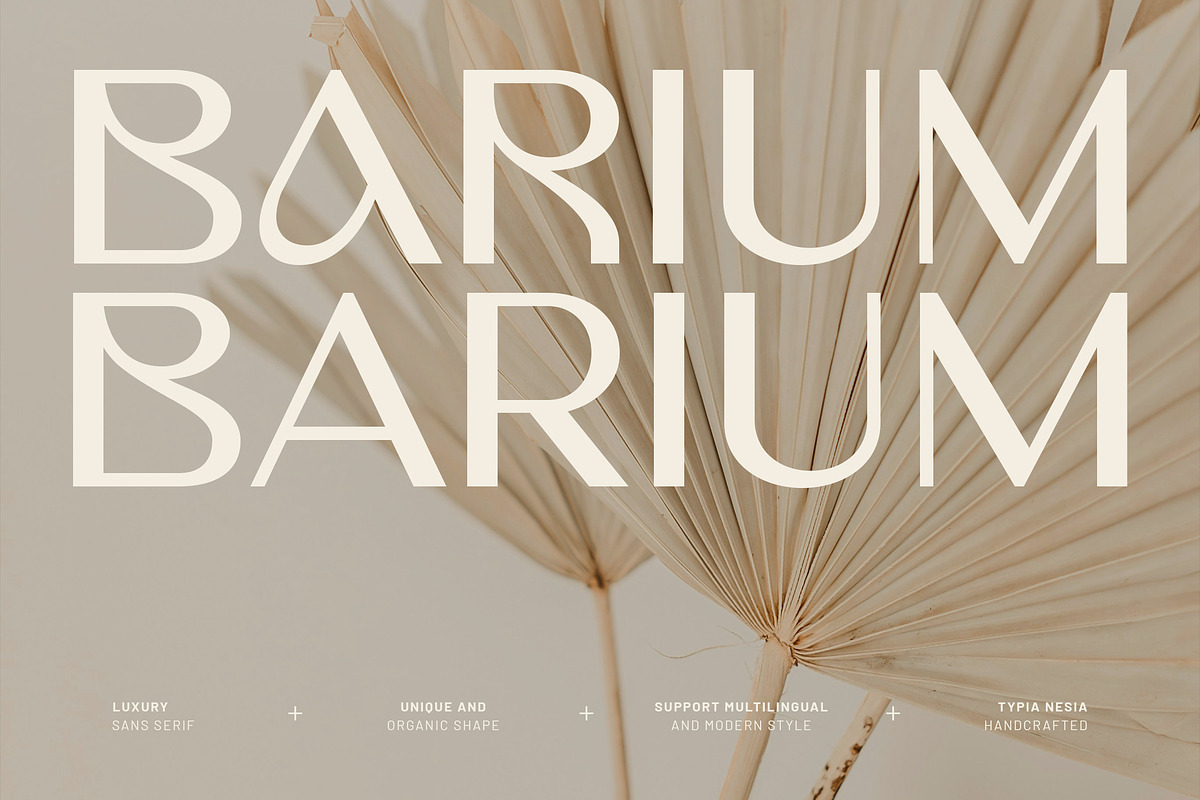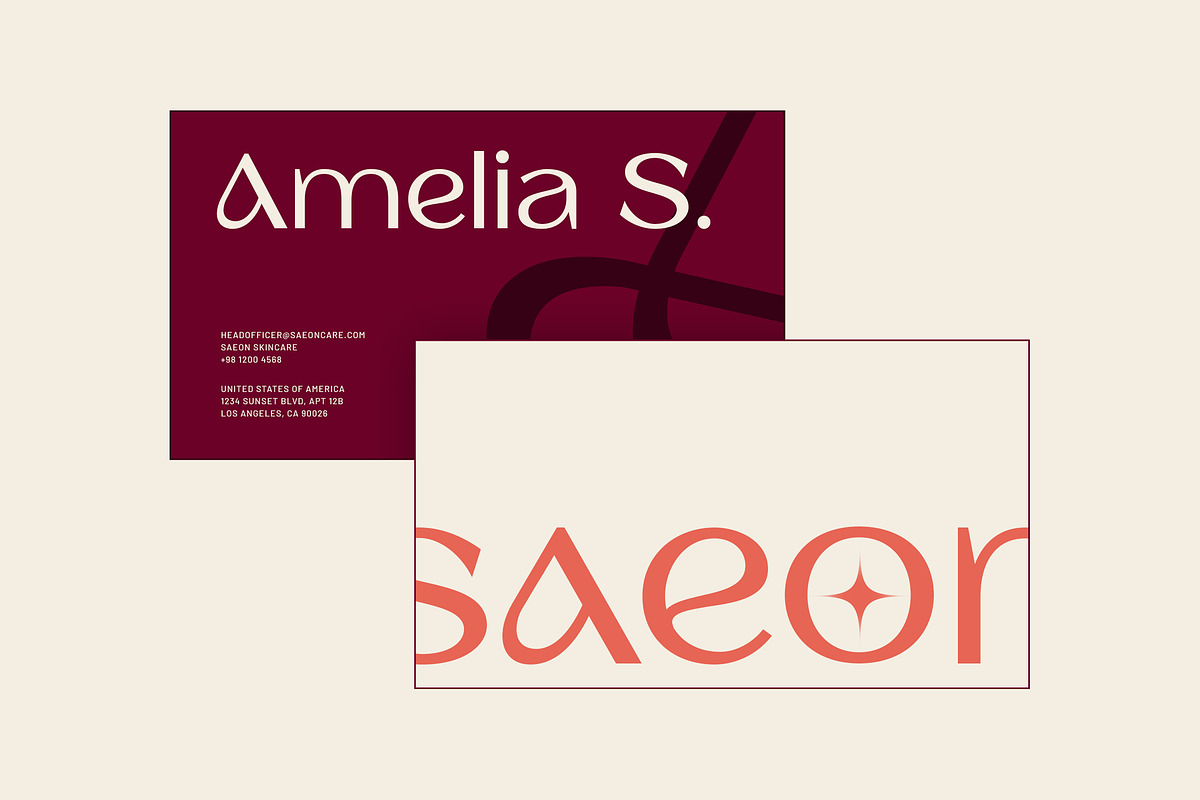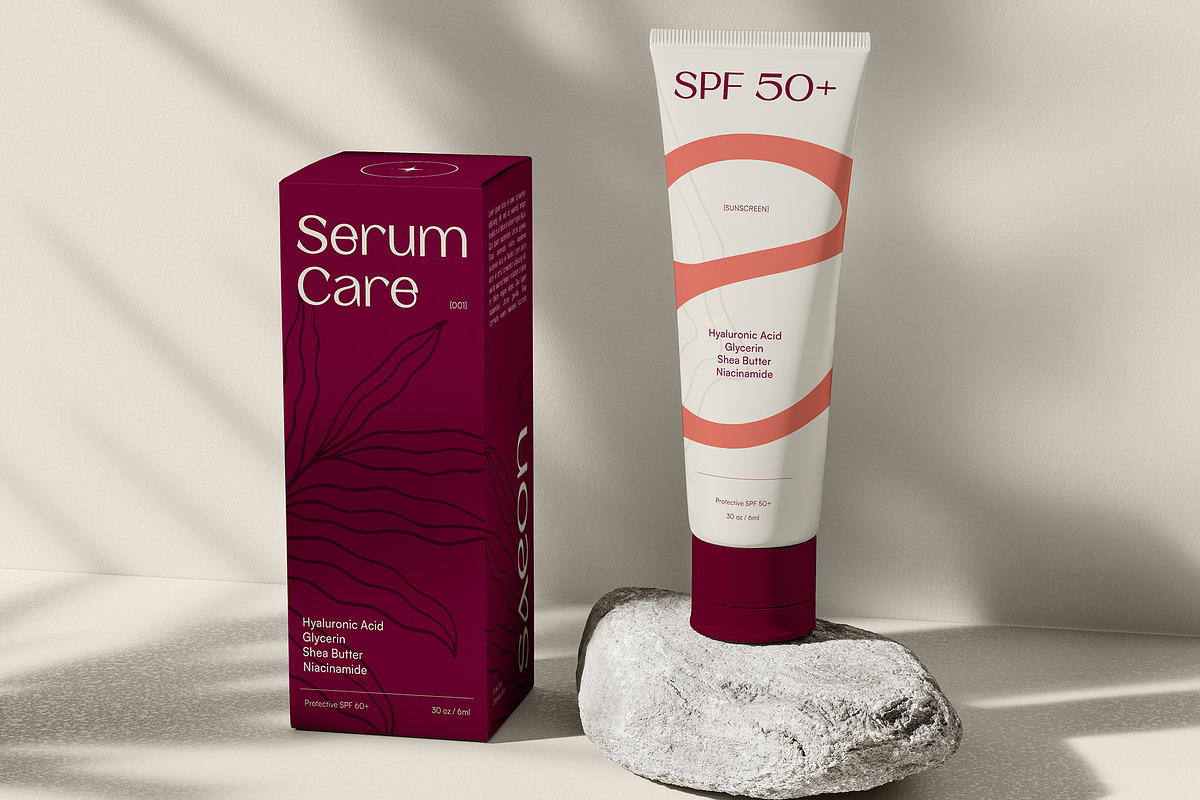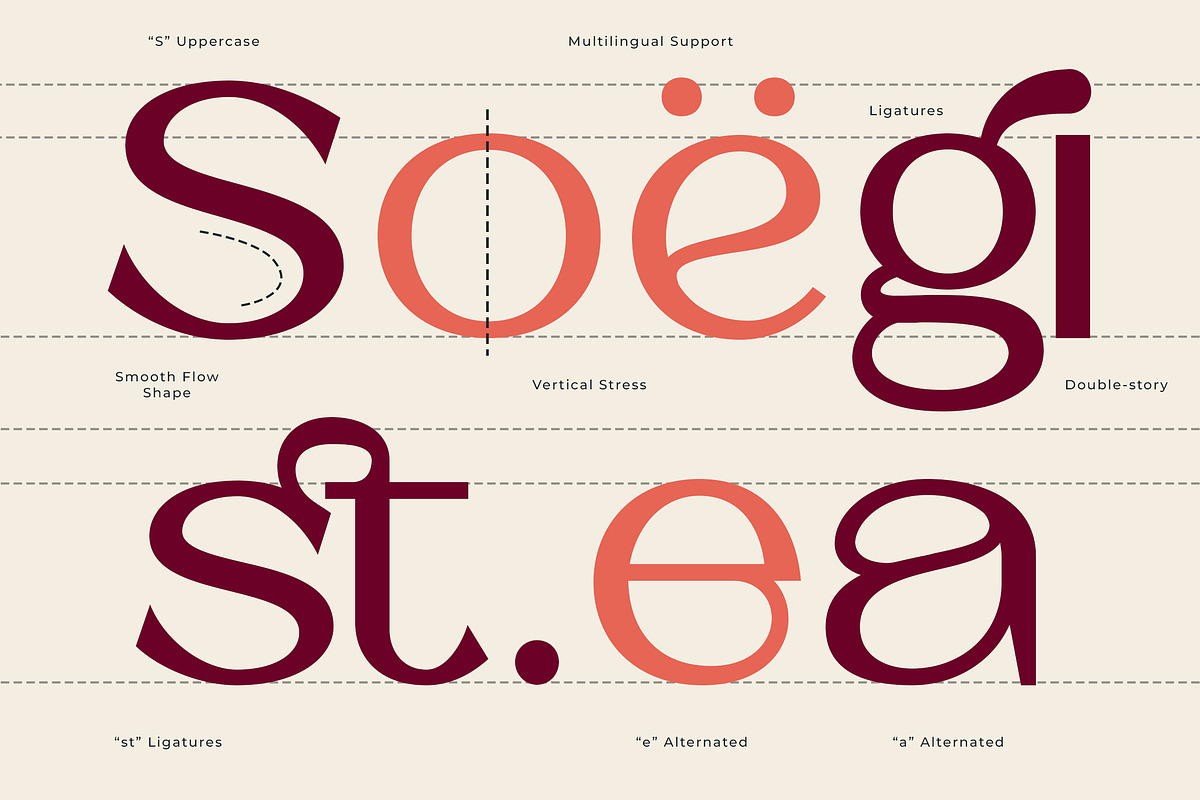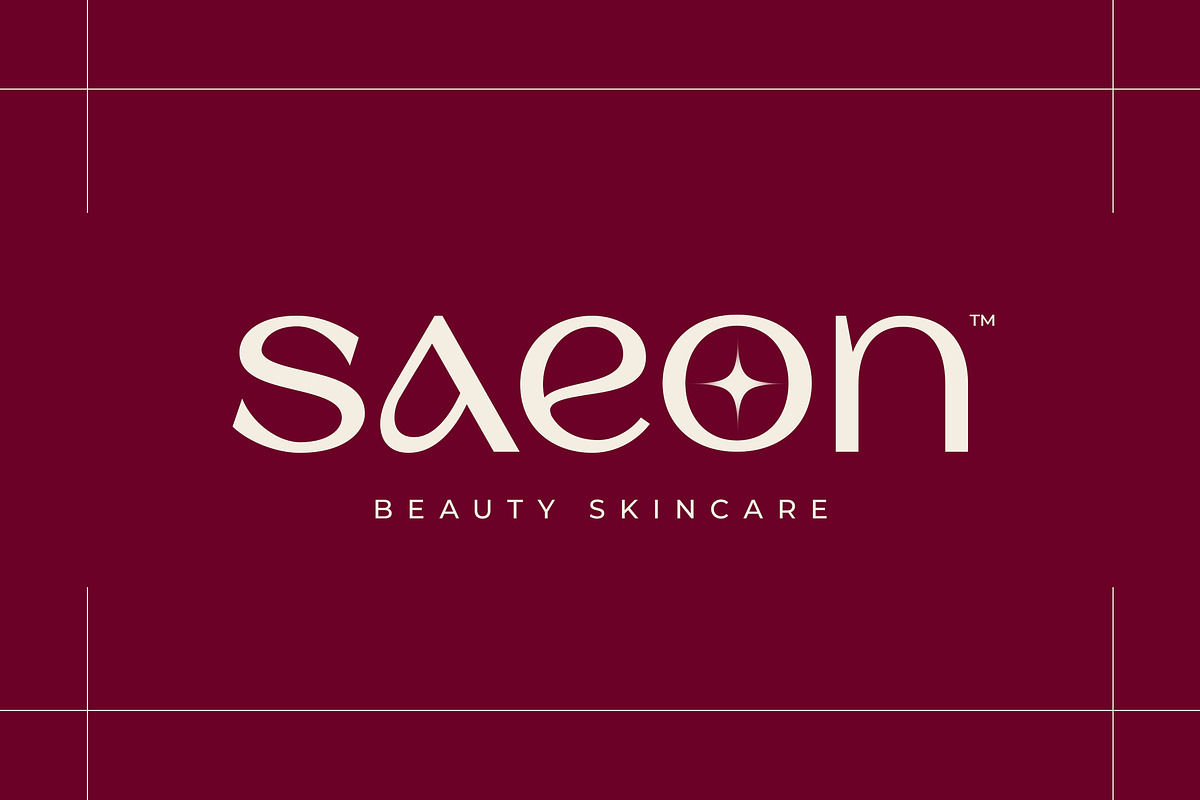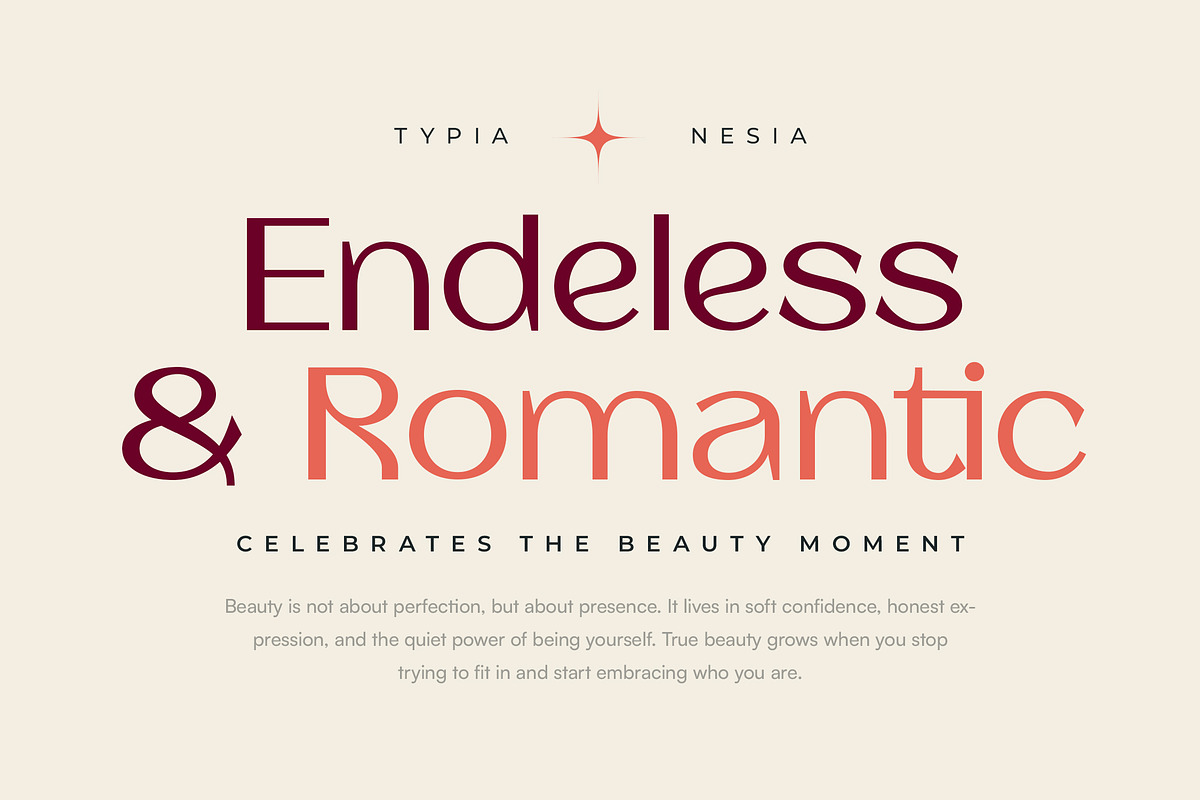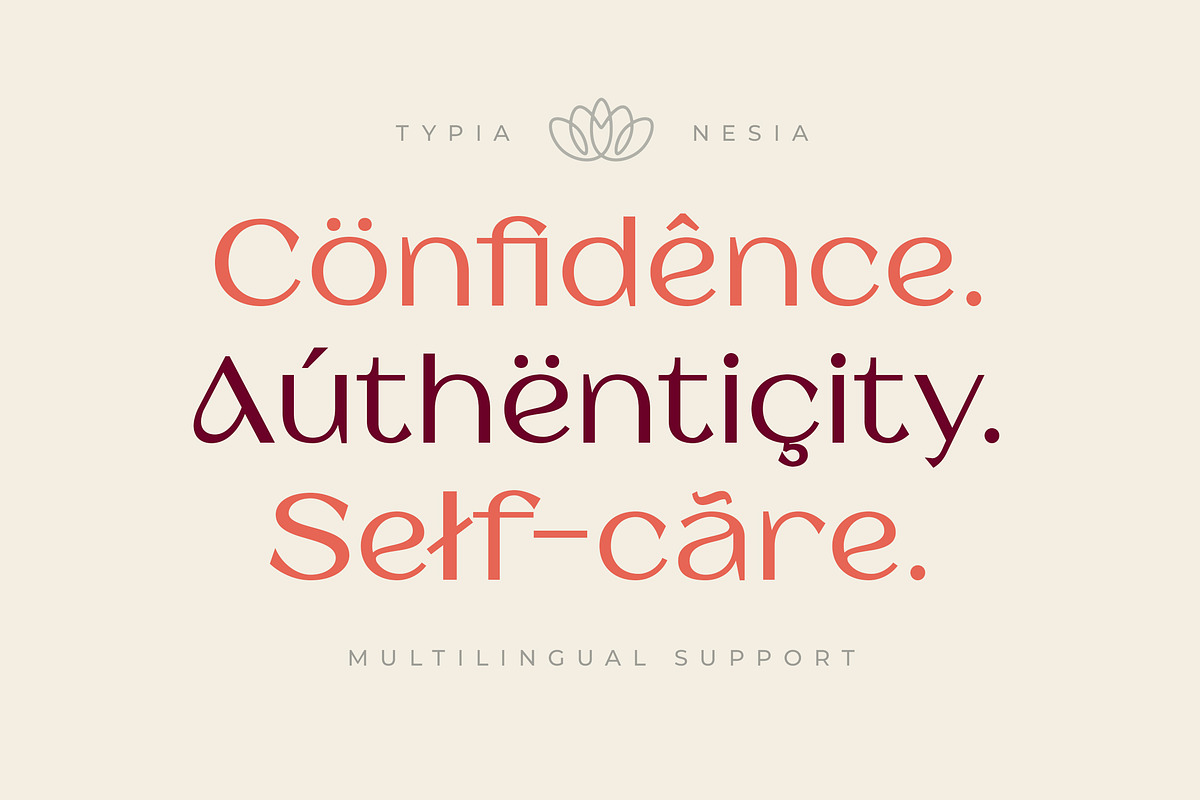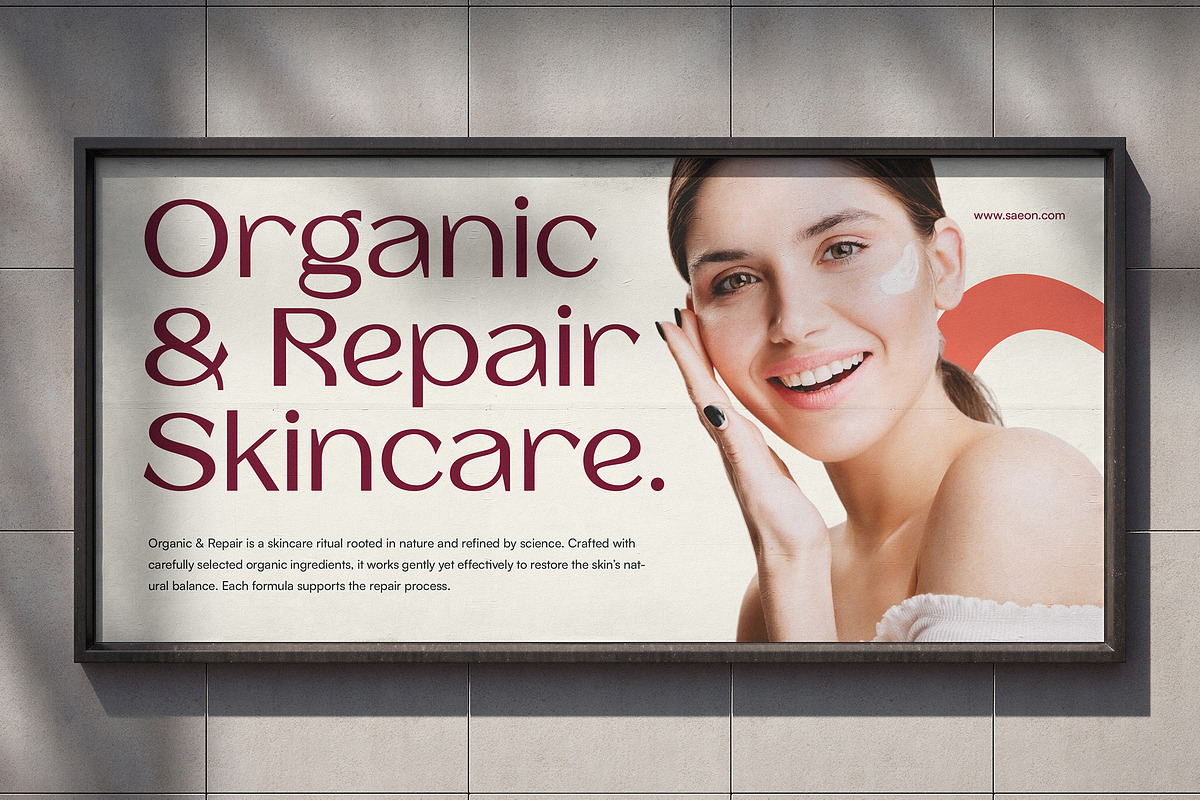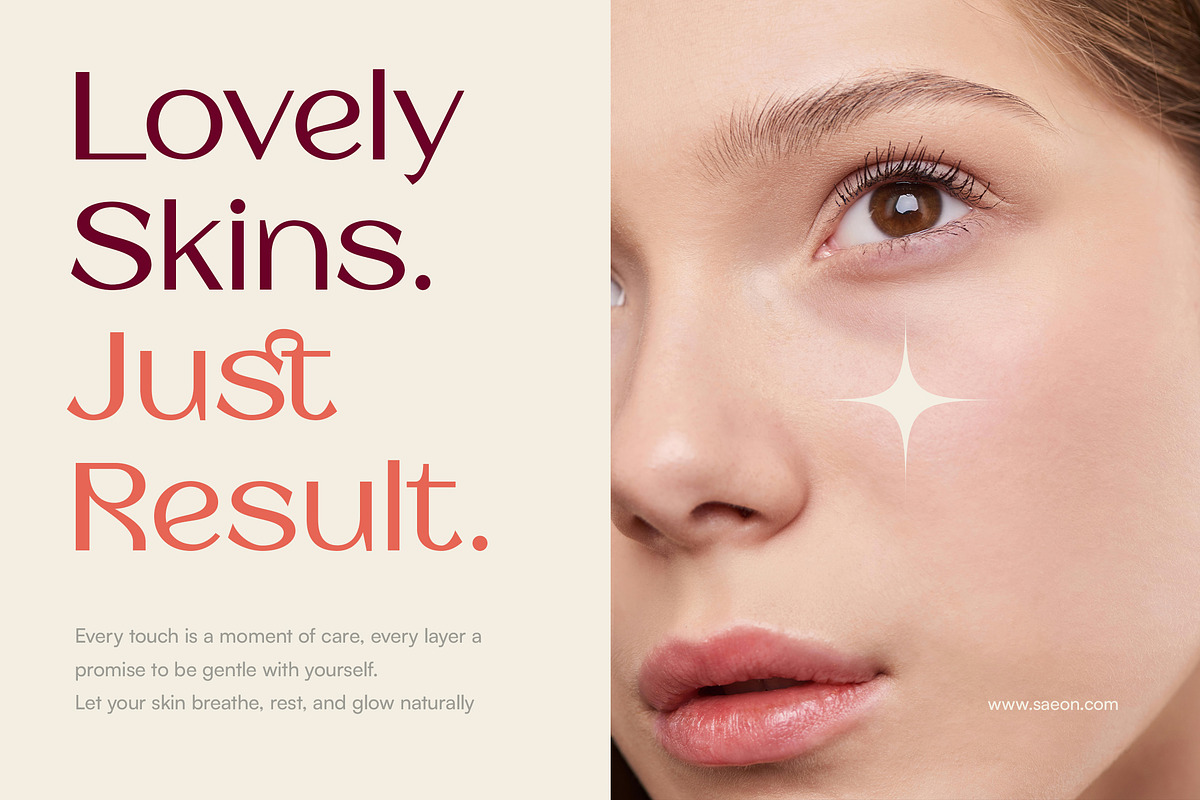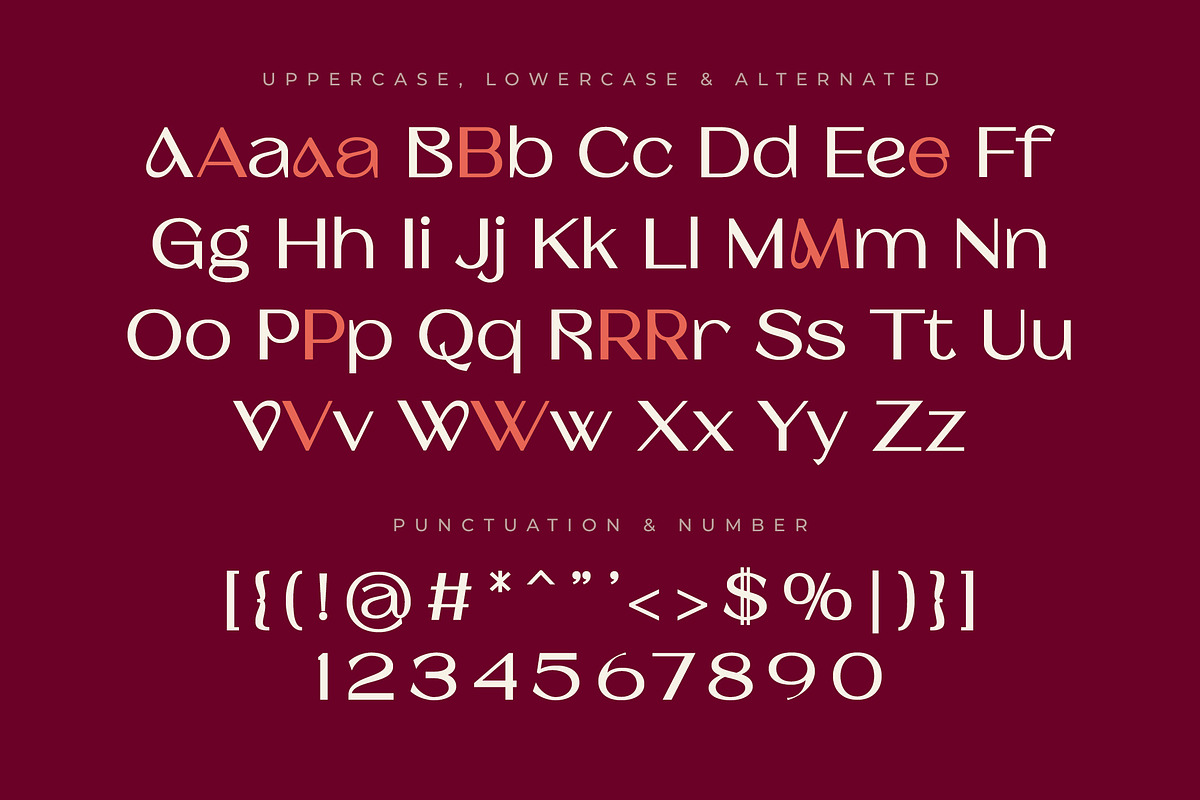
Barium - Luxury Elegant Beauty Sans
Barium - Luxury Elegant Beauty Sans Serif - Modern Aesthetic Logo Display Font
Barium is a luxury, elegant sans serif font crafted to express beauty, refinement, and timeless sophistication. Featuring clean lines, graceful curves, and well-balanced proportions, Barium delivers a classy, feminine, and royal aesthetic that feels both premium and contemporary. This font is perfect for logo design, wedding invitations, beauty and cosmetic branding, fashion labels, skincare products, posters, packaging, aesthetic projects, and any project that seeks luxury, clarity, and modern beauty in one typeface.